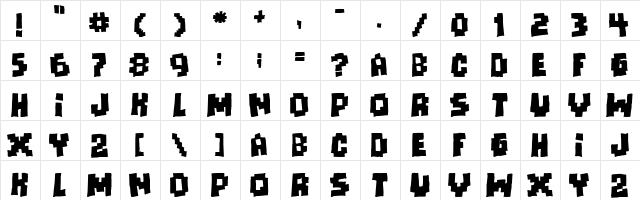
Freaks of Nature [massive] Regular
Design Context for Freaks of Nature [massive] Typeface
Freaks of Nature [massive] is a composed and adaptable typeface that performs quietly and consistently across a wide range of design contexts.
Pro Tip: Use Freaks of Nature [massive] in both headline and body roles to test its range before committing to a single application.